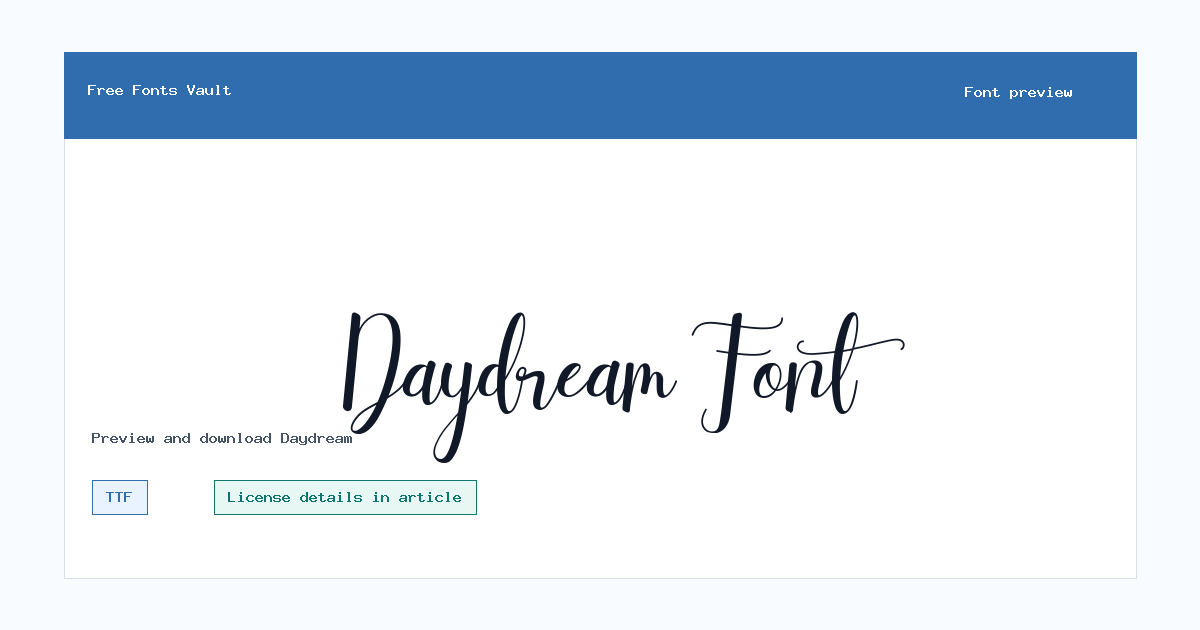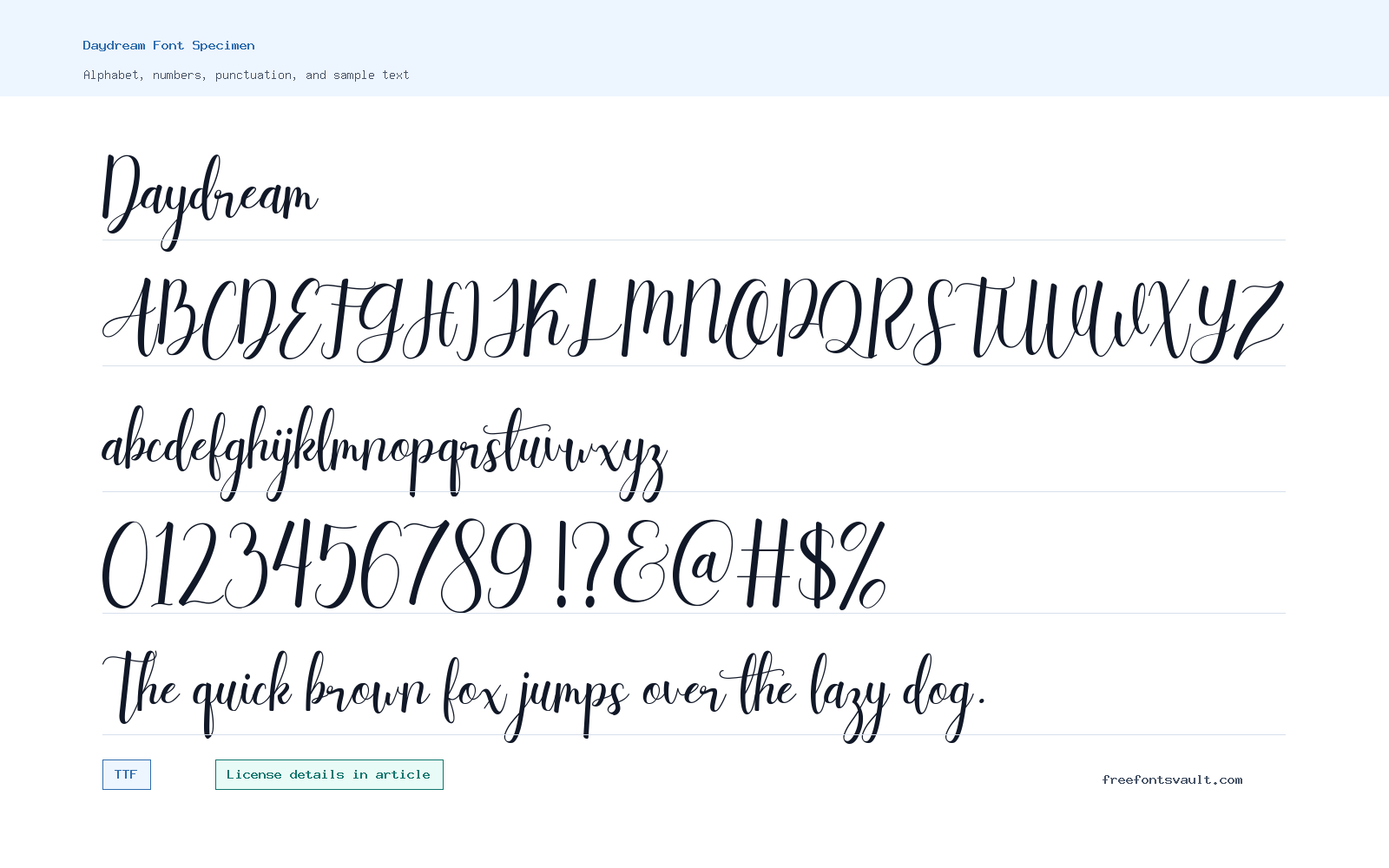
Daydream
- Designer Alice Whales
- Foundry Alice Whales
Daydream font.
Daydream is a soft handwritten display font with a gentle, dreamy feel. It works best when you want a personal touch in short text rather than long paragraphs.
About Daydream Font
Daydream has the kind of lettering style that suits names, short titles, quote graphics, greeting cards, invitation text, and decorative headers. The regular style is supplied as a TrueType font, so it can be installed on most desktop design apps and used for previewing custom words before download.
- Soft handwritten display look suited to short decorative text
- Invitation headings, greeting cards, name designs, and quote graphics
- Social media images, craft labels, simple logos drafts, and decorative titles
Alice Whales is credited as the author and foundry for Daydream.
Daydream is better for display settings than long reading. Test uppercase, lowercase, numbers, spacing, and any accented characters you need before using it in a finished design. Use Daydream for short phrases where softness matters more than dense reading. It works well for names, invitation lines, boutique labels, quote graphics, and gentle social posts. Give the letters room to breathe with slightly wider spacing, and pair it with a clean sans serif for dates, prices, captions, and body copy. Before exporting artwork, preview the exact wording you plan to use, including numbers and punctuation, because handwritten display fonts can feel very different from one word to the next. For best results, compare it on light and dark backgrounds before exporting.
Is Daydream good for body text?
It is better for short display text such as names, titles, quotes, and invitations. For paragraphs, use a simpler companion font.
Who made the Daydream font?
Alice Whales is credited as the author and foundry for Daydream.